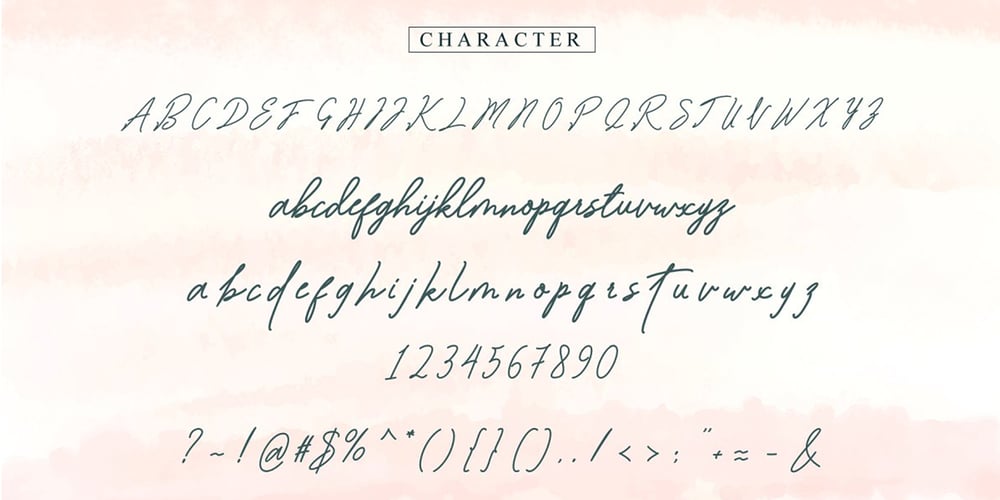
Bartdeng Font Family was designed by Fajri Yandi and published by Doeltype. Bartdeng contains 1 styles and family package options. Bartdeng is a luxury Handwritten Font with a new stylish, a perfection style of the letters you want to use, modern handwriting with many alternatives. Now this is an OpenType! It’s smart and in line with your wishes! You are welcome to use it, suitable for various purposes: logo, signatures, corporate symbol, wedding invitation, title, creative, t-shirt, business card, letterhead, nameplate, headings, label, poster, news, badge, letterhead, cutting, hot stamping, quotation, etc. Bartdeng Features 535 glyphs and alternative characters. Includes the initial letter to terminal, alternative, ligature and multiple language support. Programs that support OpenType features such as Adobe Photoshop CC, Adobe Illustrator CS, Adobe Indesign, Corel Draw, and Microsoft Office.